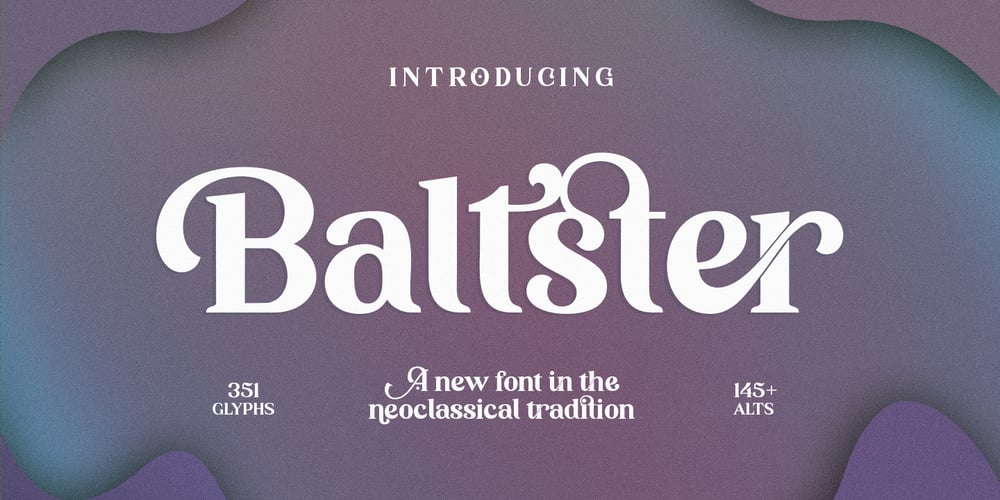
Baltster Font Family was designed by Akmal Yusar and published by Picatype. Baltster contains 1 styles and family package options. Baltster is a bold and beautiful natural and elegant design with a vintage flair. It uses 56 ligature to smoothly link letters. This allows Baltster to function as a magnificent display font. This unique font also includes 89 alternatives. Numbers, symbols and punctuation are also included in this font. Multi-lingual and PUA-encode. Let this font make your project more raw and natural! Baltster is perfect for any modern project including branding designs, logos, invitations, wedding decorations, website designs, Instagram, business cards, and more. To activate the OpenType Stylistic alternative, you need a program that supports OpenType features such as Adobe Illustrator CS, Adobe Indesign & CorelDraw X6-X7, Microsoft Word 2010 or newer versions. We hope you enjoy using Baltster. Please comment if you have thoughts or feedback. Or just send me a PM or email me at picatypestudio@gmail.com Thank you for buying and having fun!